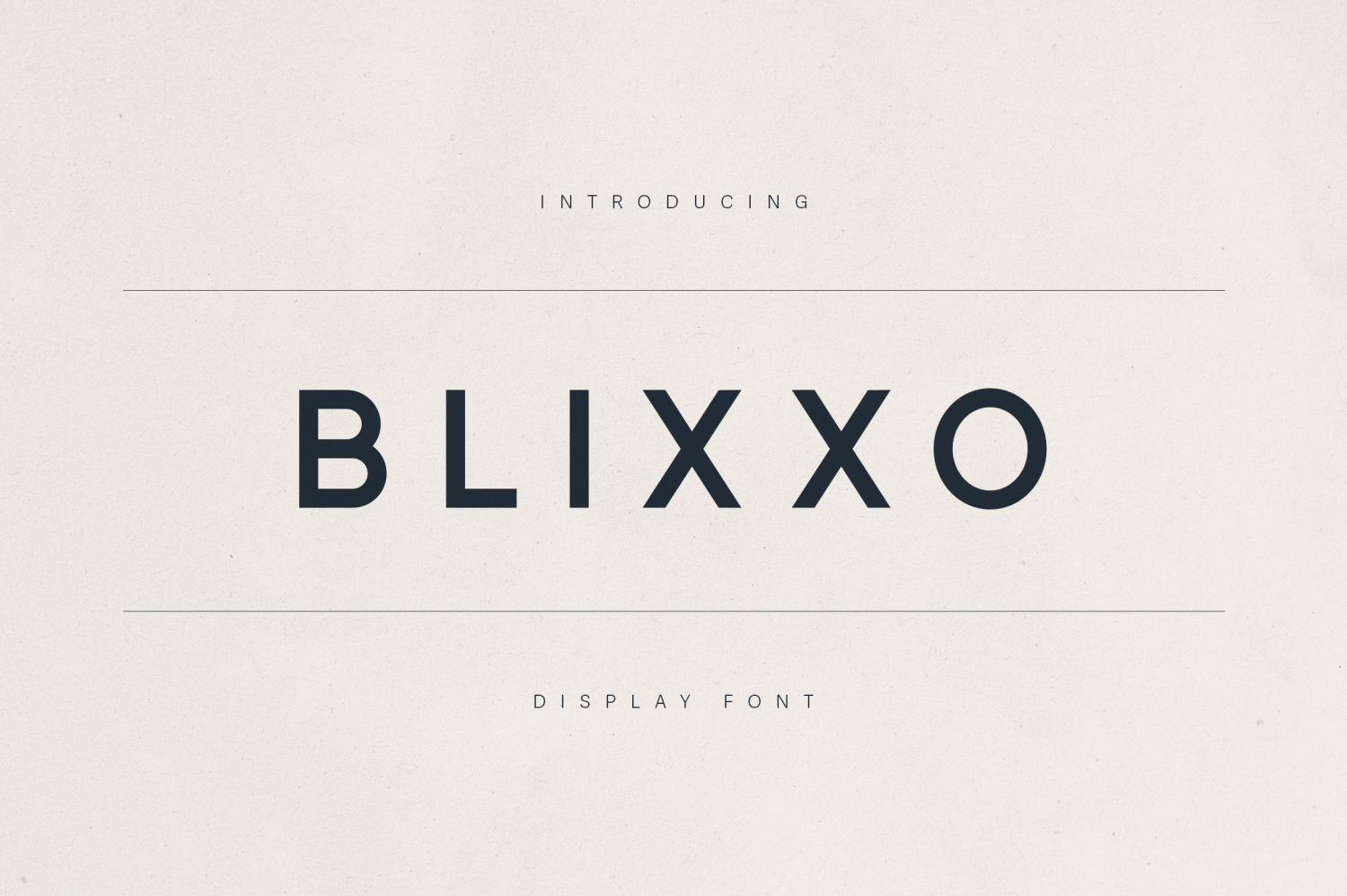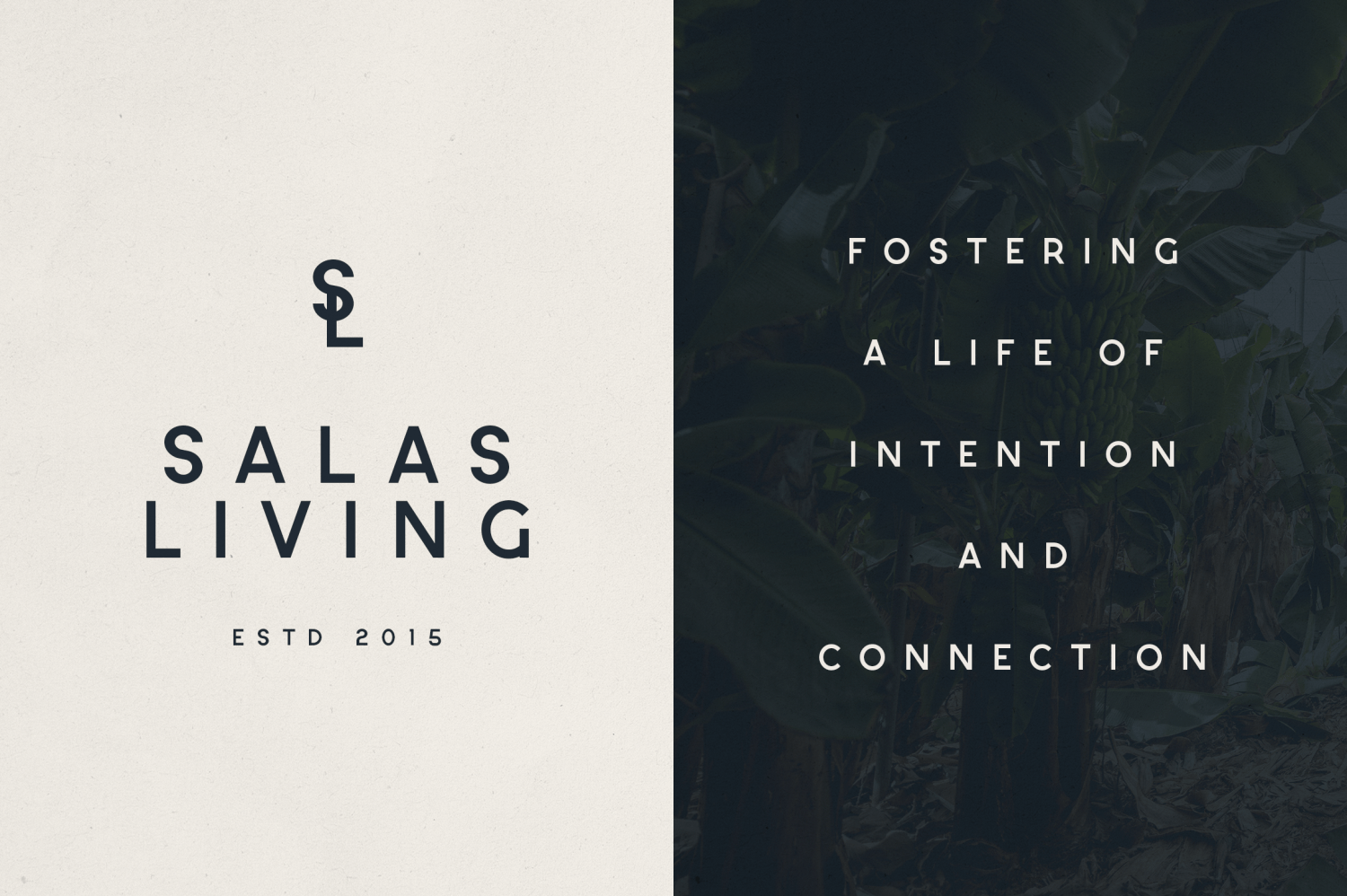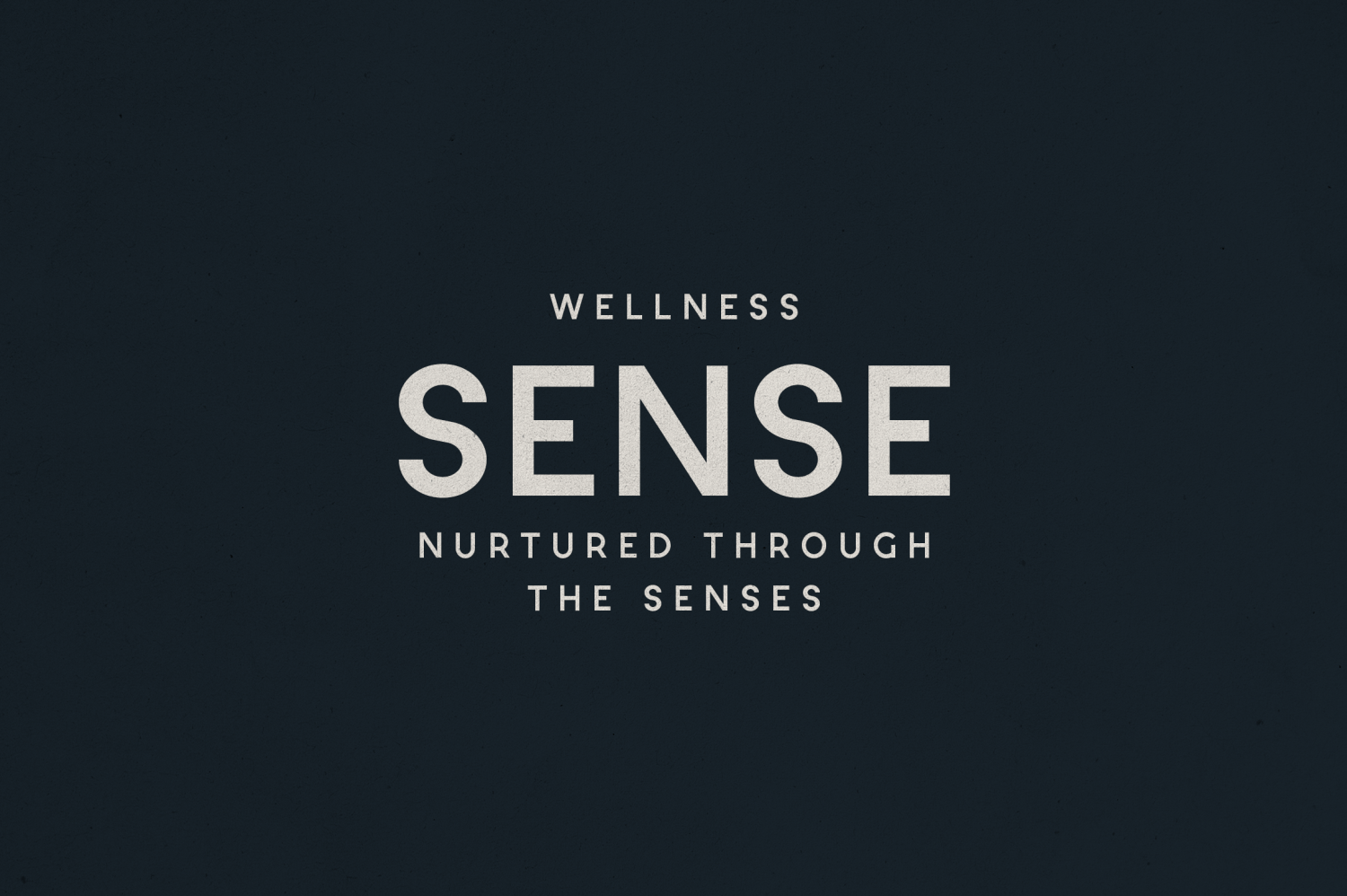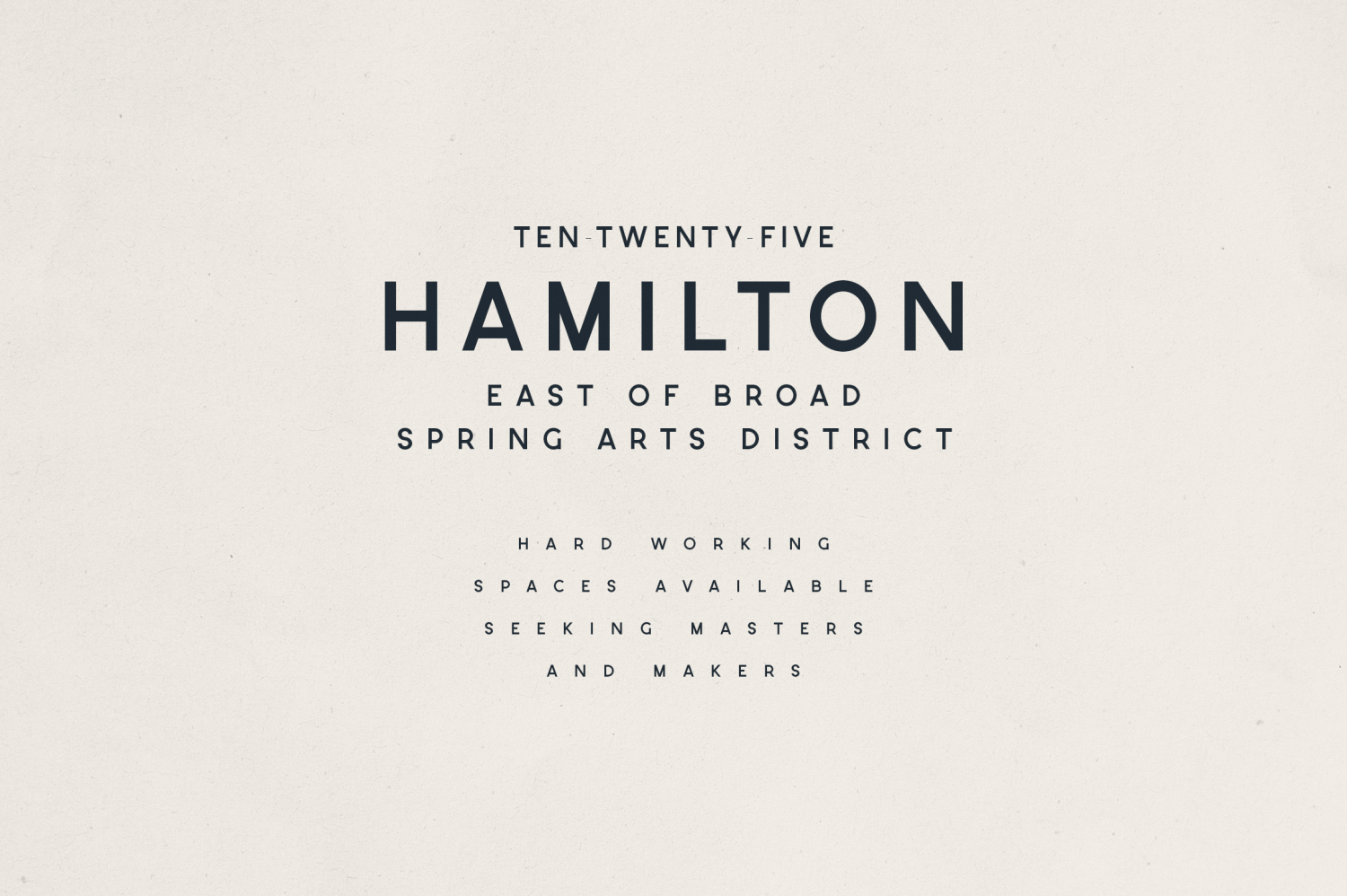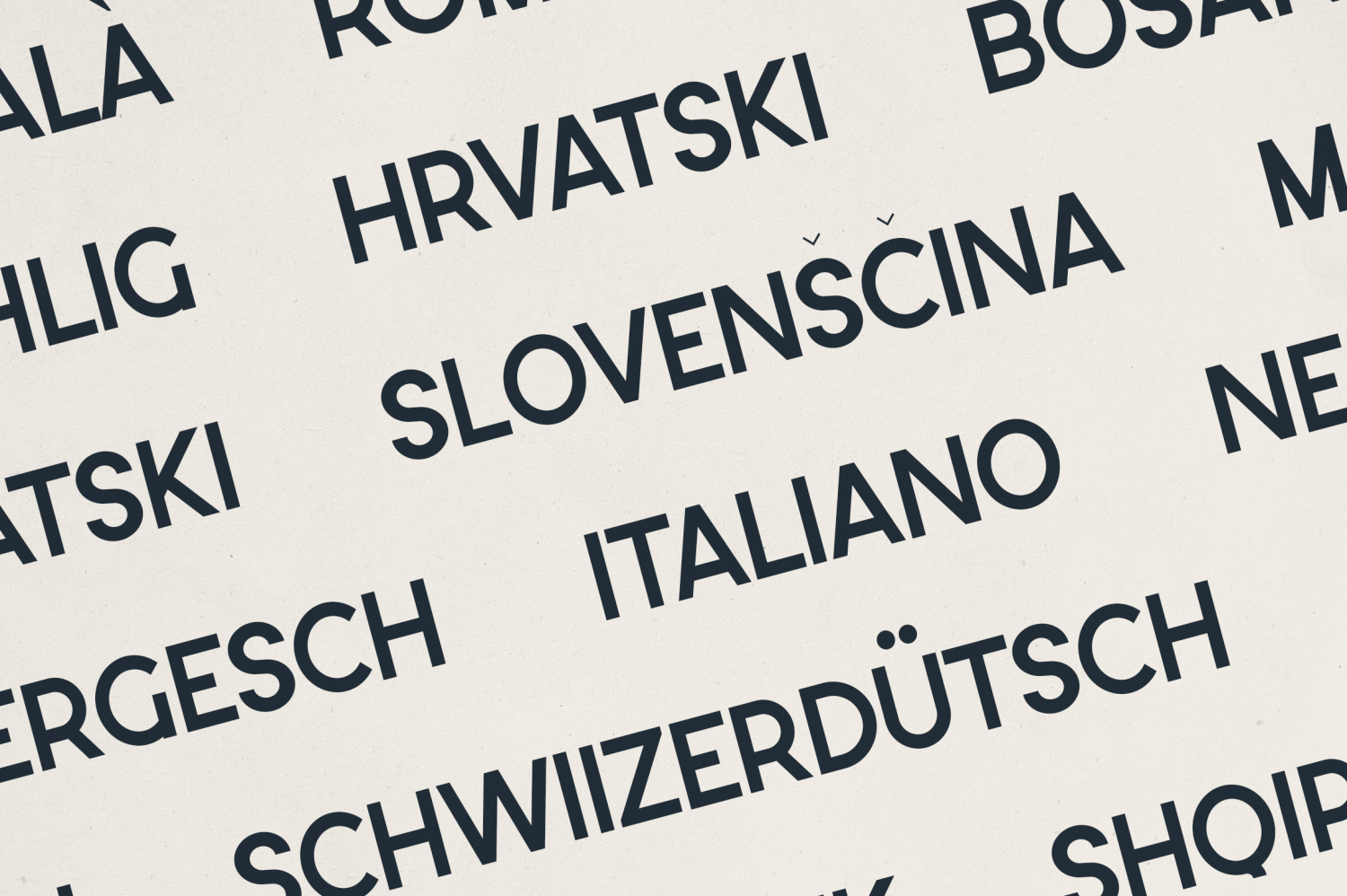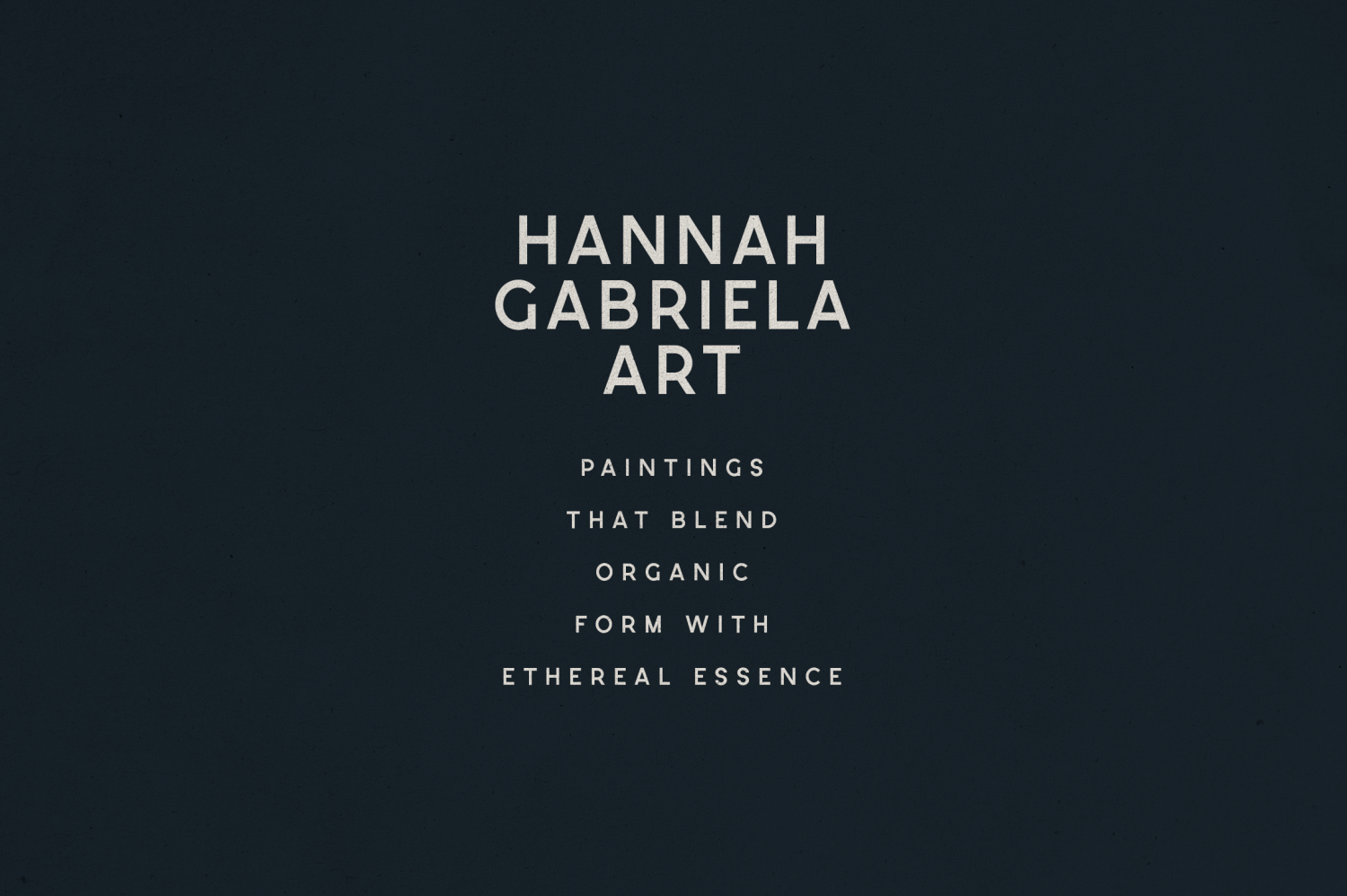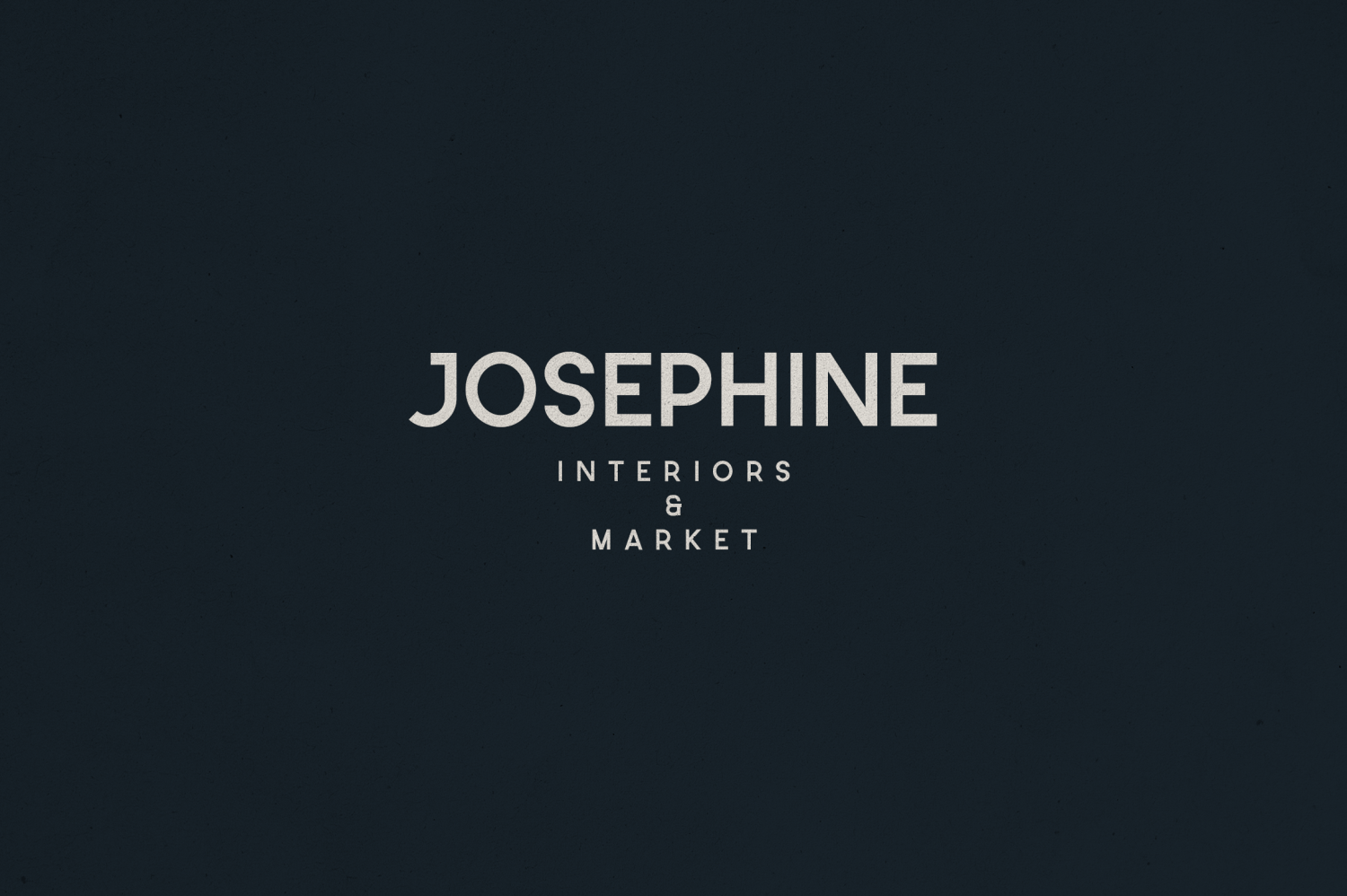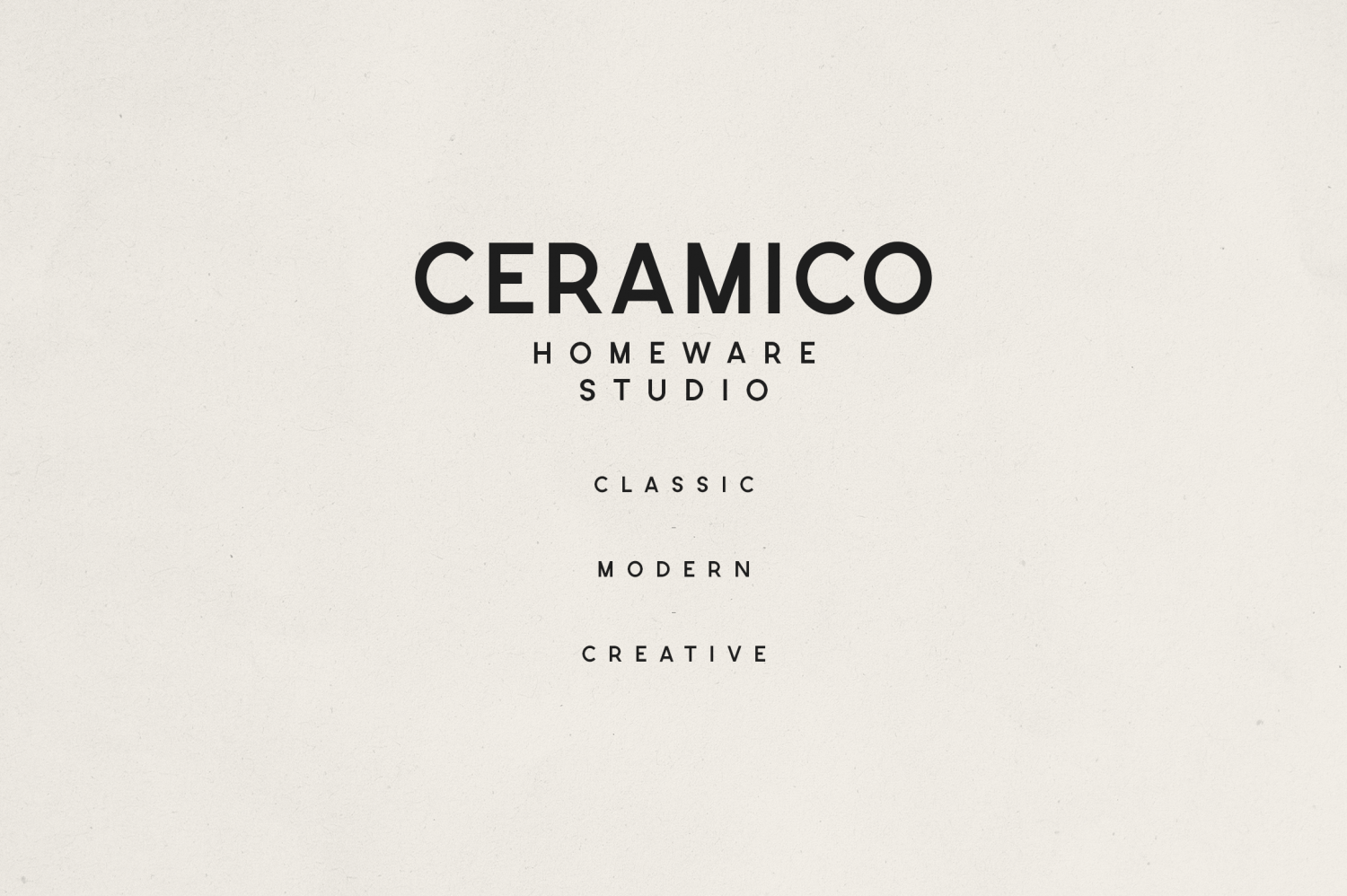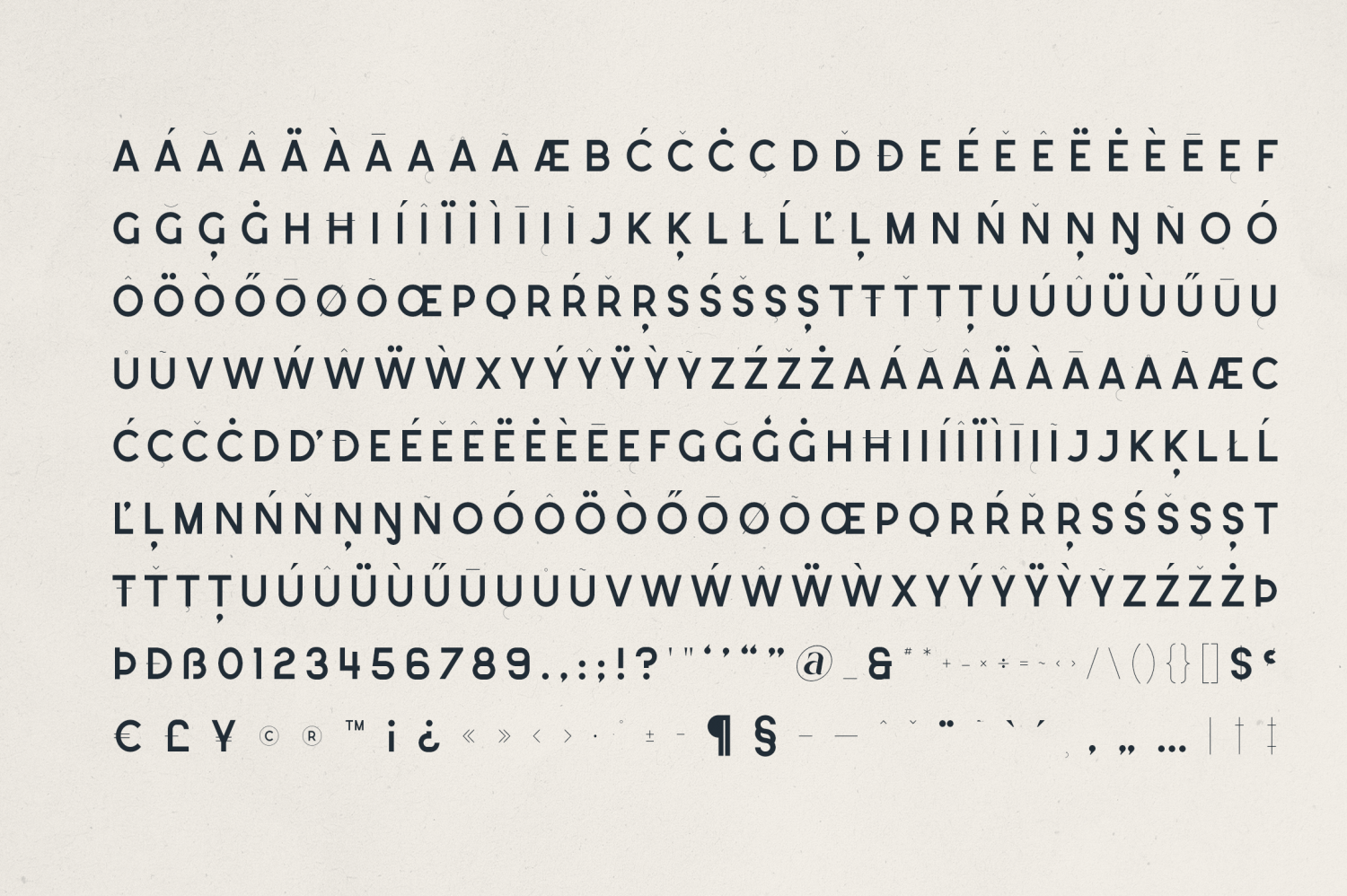
Blixxo
Blixxo is a modern, minimalist display typeface crafted for brands that seek clarity, elegance, and a refined presence. With clean lines, balanced proportions, and a strong geometric foundation, Blixxo brings sophistication to editorial designs, lifestyle branding, signage, and digital interfaces.
Designed with versatility in mind, Blixxo features:
- Uppercase letterforms with clean, bold strokes
- High readability at both display and smaller sizes
- Multilingual support with a full set of accented characters and punctuation
- Subtle quirks for personality without excess
Whether you're designing for contemporary wellness brands, architectural spaces, or artisanal product packaging, Blixxo provides a modern voice that feels both timeless and intentional.